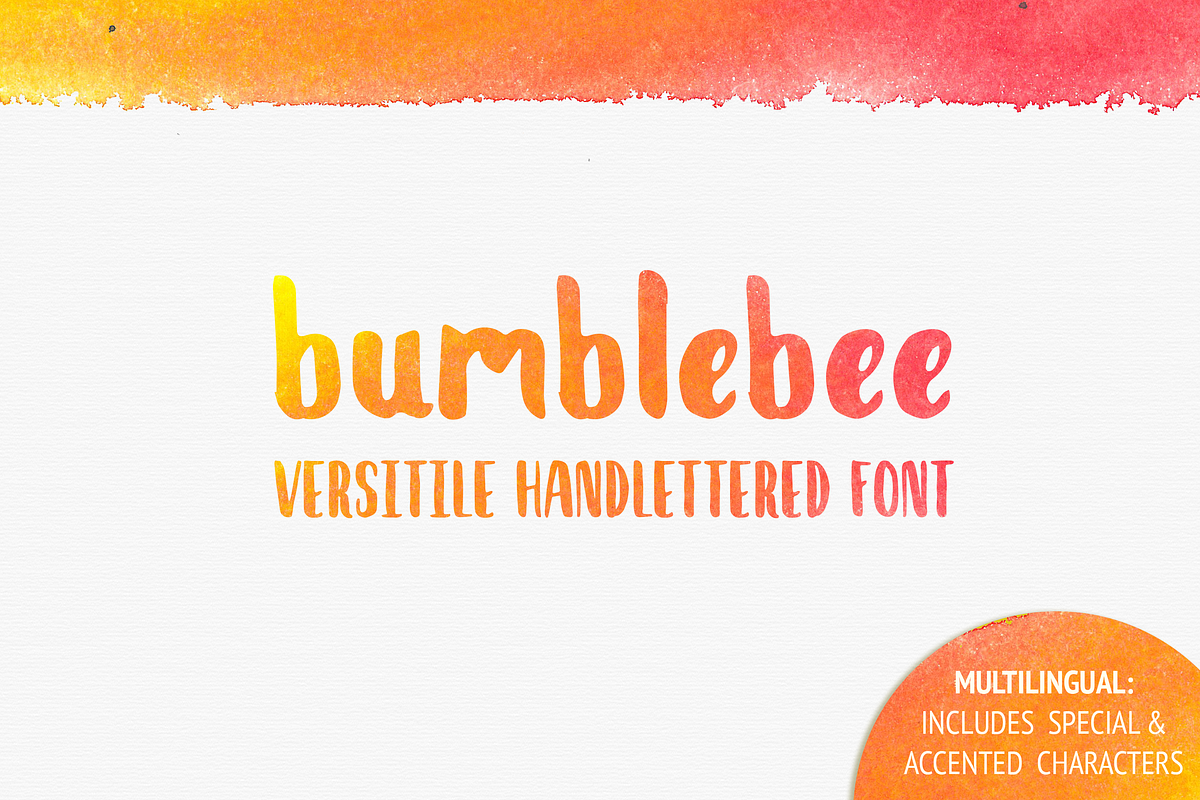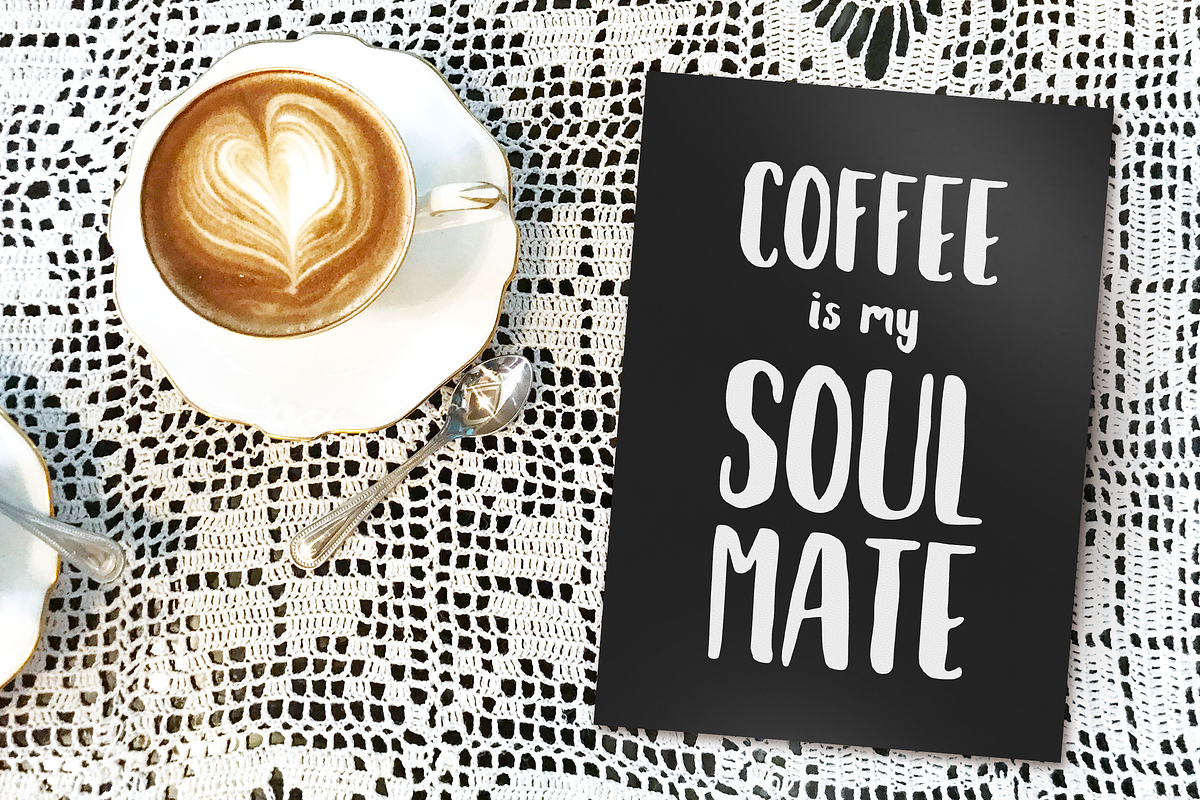
bumblebee - Handlettered Font
Versatile, hand-drawn OpenType font. Add some personality to your designs with Bumblebee! This chunky hand-lettered font is made from hand painted brush letters.
Upper- and lower-case letters, punctuation, special and accented characters
Anchored accent characters included for making any accented combination
Includes some alternate special characters (for height matching)
Unique, hand-drawn brush letters